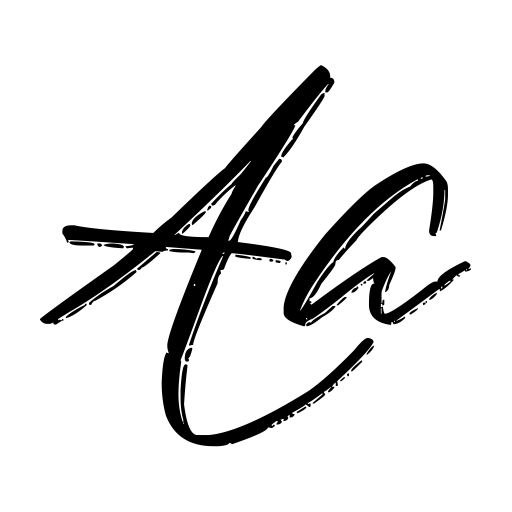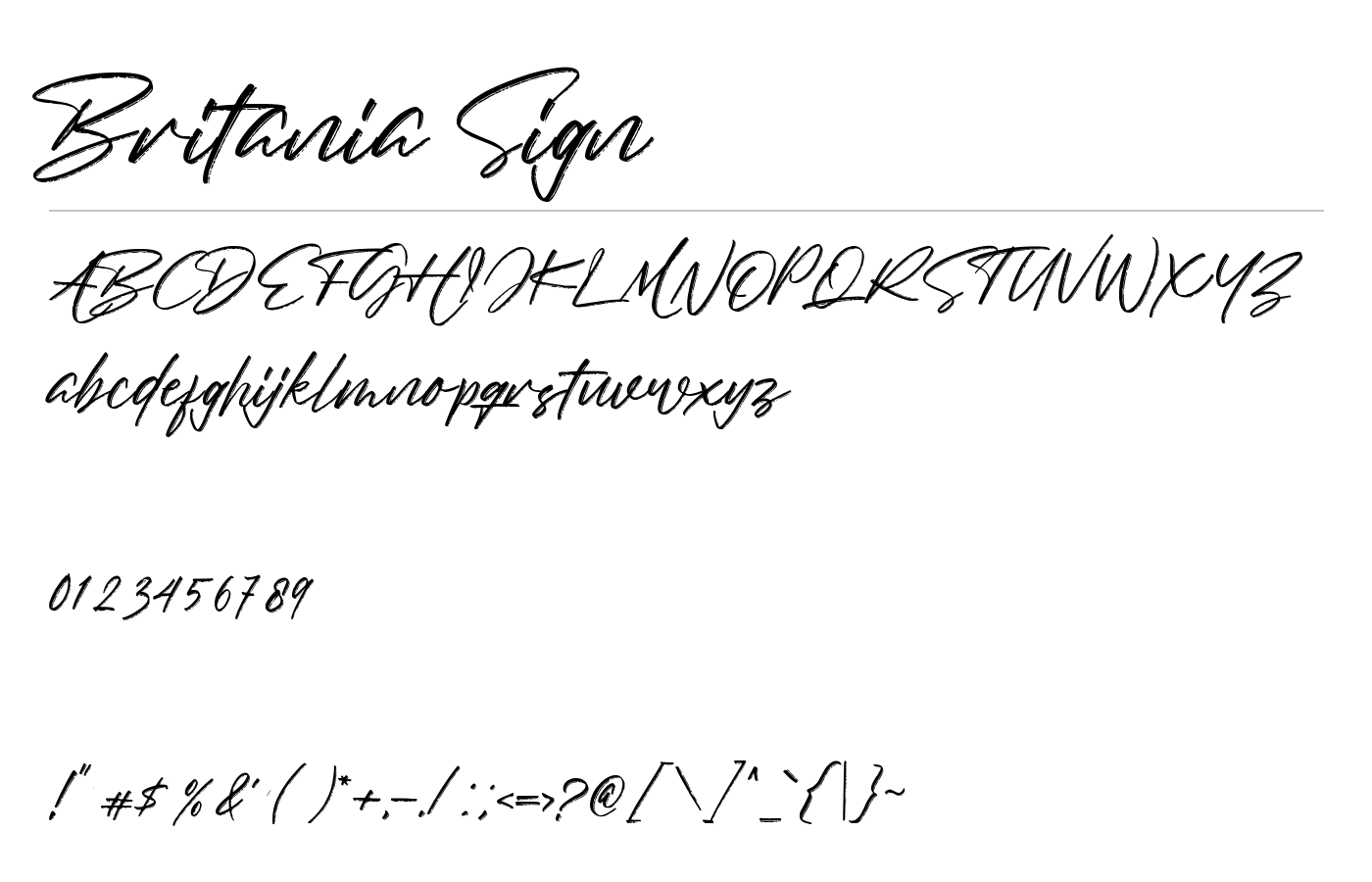
Britania Sign is a stylish, handwritten script font that captures a casual yet elegant vibe with its fluid, brush-like strokes and slightly textured edges. Its natural, flowing letterforms and moderate contrast make it perfect for creative branding, invitations, and editorial projects that want to convey a personal, artistic touch. This font works especially well in headlines or logos where a unique, handcrafted feel is desired.
Britania Sign Font
About Britania Sign Font
| Font family | Britania Sign Font |